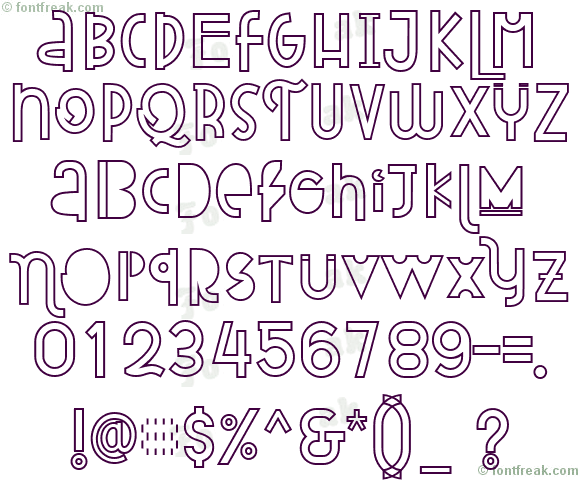
Attracted Monday Outline
About Attracted Monday Outline
Attracted Monday Outline is a distinctive display font designed by Situjuh Nazara, categorized as an outline typeface. This unique font features bold, rounded letters with a playful yet modern aesthetic, making it an eye-catching choice for various design projects. The stroke weight is consistent, providing a striking contrast against the negative space, which enhances its visual appeal. The spacing between the letters is generous, allowing for easy readability and making it suitable for both print and digital media.
This font excels in multiple use cases, particularly where a vibrant and engaging style is required. It is perfect for creating eye-catching movie posters that demand attention, infusing personality into restaurant menus that invite customers to explore, and adding a fun touch to children's book covers. Additionally, it can be used effectively in promotional materials for events or parties, where a lively and inviting atmosphere is essential. Graphic designers, small business owners, and content creators will find this font particularly beneficial as it enhances their branding and communication efforts.